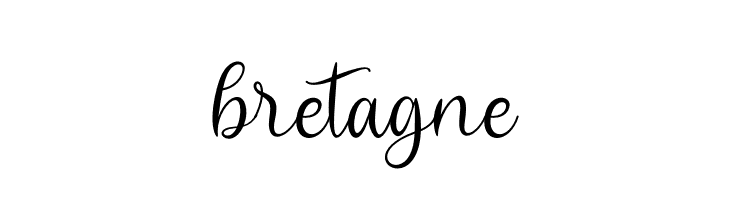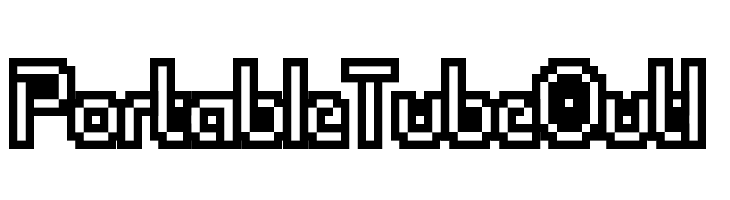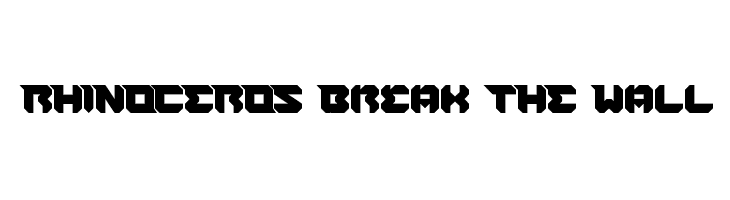
A bold, pixelated font with a retro digital aesthetic.
A playful, bold, and rounded font with a hand-drawn, comic book style.
A bold, geometric font with a futuristic and tech-inspired design.
A bold, expressive brush-style font with dynamic strokes and a hand-painted look.
An elegant and dynamic italic typeface with moderate contrast and slightly condensed characters.
A pixelated, blocky font with a retro digital aesthetic.
A playful, rounded font with a casual and informal style.
A modern, italicized font with clean lines and a sleek appearance.
A bold, intricate Blackletter font with dramatic, historical elegance.